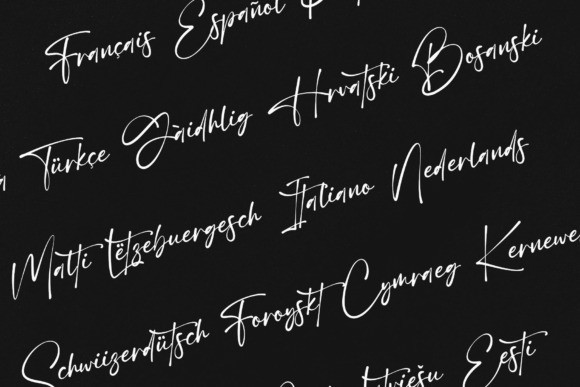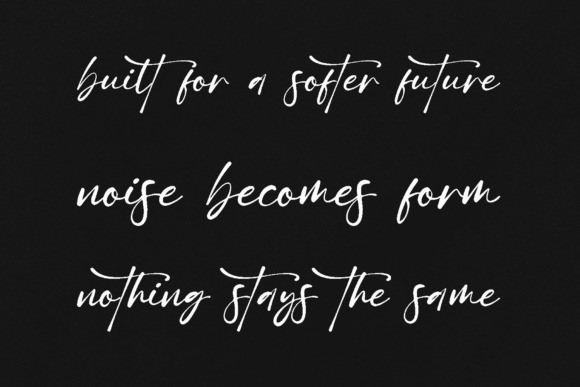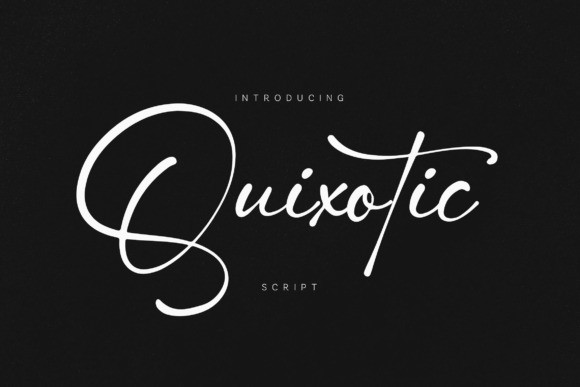
Quixotic Script Font
Quixotic Script Font a whimsical signature script that masters the art of the loop. Featuring exaggerated, airy flourishes and a relaxed, upright flow, Quixotic feels like a genuine piece of refined penmanship. Its unique character comes from the balance between its large, lyrical loops and its clean, monolinear connections, offering a visual experience that is both stable and incredibly imaginative.